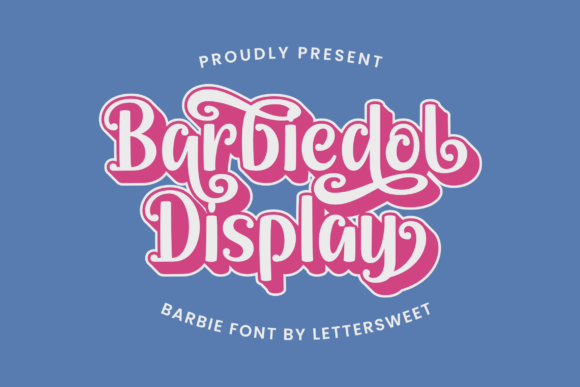
Introducing Barbiedol Display Font: The Ultimate Choice for Sweet and Soft Designs
In the world of typography, fonts play a crucial role in conveying the tone and personality of a design. When it comes to creating sweet and soft designs, the right font can make all the difference. This is where Barbiedol Display Font comes in – a stunning display font inspired by the iconic movie Barbie. With its feminine feel and versatility, Barbiedol Display is perfect for a wide range of design applications, from wedding invitations to t-shirt designs.
The Inspiration Behind Barbiedol Display Font
Barbiedol Display Font is a creative interpretation of the Barbie movie’s iconic style. The font’s design is inspired by the movie’s colorful, playful, and feminine aesthetic, making it an ideal choice for designers looking to create sweet and soft designs. The font’s creator aimed to capture the essence of Barbie’s charm and elegance, resulting in a font that is both beautiful and functional.
Key Features of Barbiedol Display Font
- Feminine Feel: Barbiedol Display Font boasts a distinctly feminine feel, making it perfect for designs that require a touch of elegance and sophistication.
- Display Font: As a display font, Barbiedol Display is designed to make a statement. Its bold and eye-catching design makes it perfect for headlines, titles, and other display purposes.
Design Applications for Barbiedol Display Font
One of the best things about Barbiedol Display Font is its versatility. This font can be used for a wide range of design applications, including:
- Wedding Invitations: Create beautiful and elegant wedding invitations that set the tone for a special day.
- Logos: Use Barbiedol Display Font to create stunning logos that reflect your brand’s personality and style.
- Headlines: Add a touch of glamour to your headlines with this font’s bold and eye-catching design.
- Posters: Create eye-catching posters that grab attention and leave a lasting impression.
- T-Shirt Designs: Design stunning t-shirts that showcase your creativity and style.
- Tote Bag Designs: Add a touch of elegance to your tote bag designs with this beautiful font.
Why Choose Barbiedol Display Font?
With so many fonts available, why choose Barbiedol Display Font? Here are just a few reasons:
- Unique Design: Barbiedol Display Font boasts a unique design that is sure to stand out in a crowd.
- Feminine Touch: This font’s feminine feel makes it perfect for designs that require a touch of elegance and sophistication.
Tips for Using Barbiedol Display Font